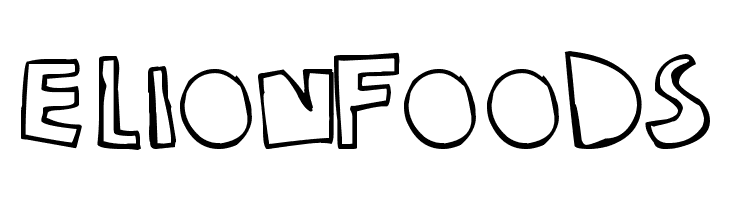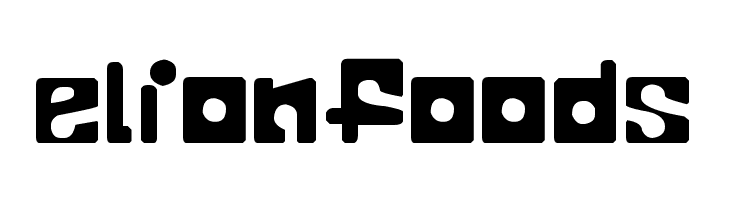
A bold, cartoonish font with irregular, playful shapes and a hand-drawn feel.
( Fonts by Rodrigo German - RASDESIGN )
A playful, hand-drawn font with a cartoonish and quirky style.
( Fonts by Press Gang Studios - Andeh Pinkard - www.pressgang-studios.com )
A playful, hand-drawn font with bold, dynamic strokes.
( Fonts by Press Gang Studios - Andeh Pinkard - www.pressgang-studios.com )
A bold, italic, brush-style font with a dynamic and expressive handwritten feel.
( Fonts by Press Gang Studios - Andeh Pinkard - www.pressgang-studios.com )
A playful, handwritten font with irregular and dynamic letterforms.
( Fonts by Press Gang Studios - Andeh Pinkard - www.pressgang-studios.com )
A playful, handwritten-style font with dynamic, slanted characters.
( Fonts by Press Gang Studios - Andeh Pinkard - www.pressgang-studios.com )
An ornate, vintage-style font with intricate decorative details.